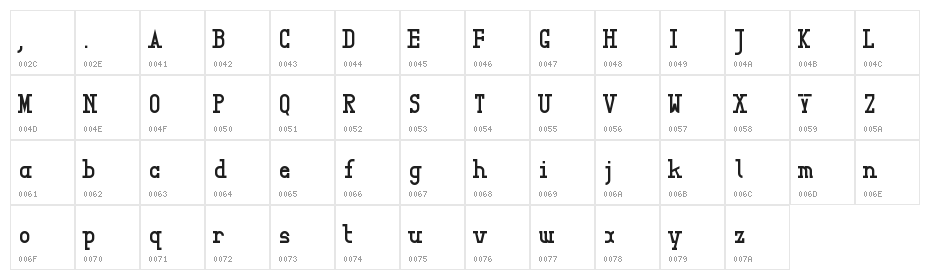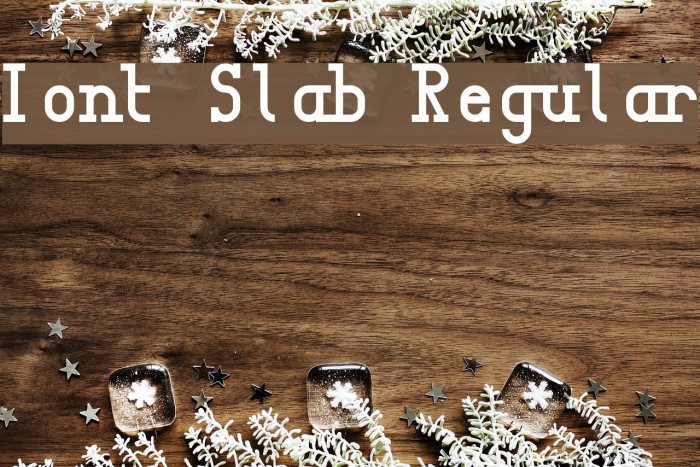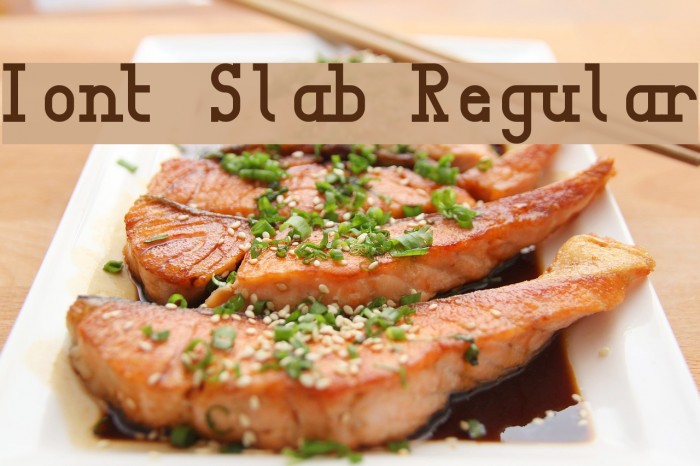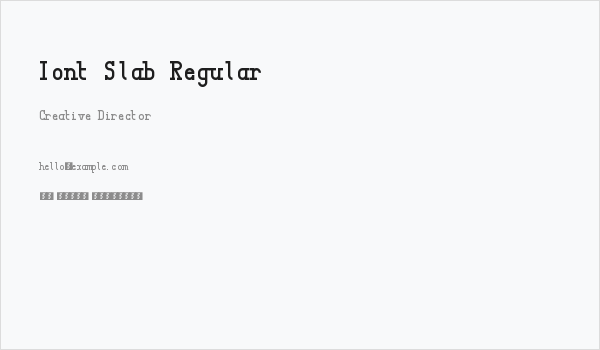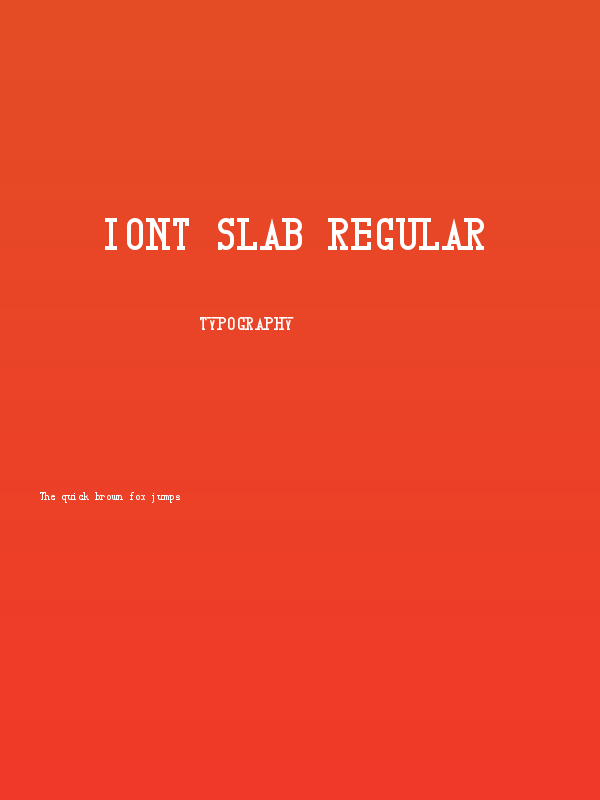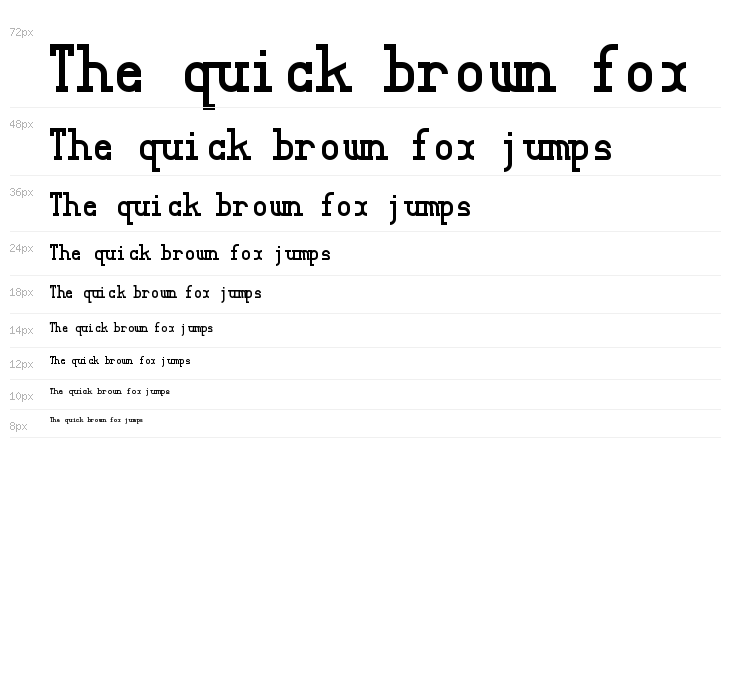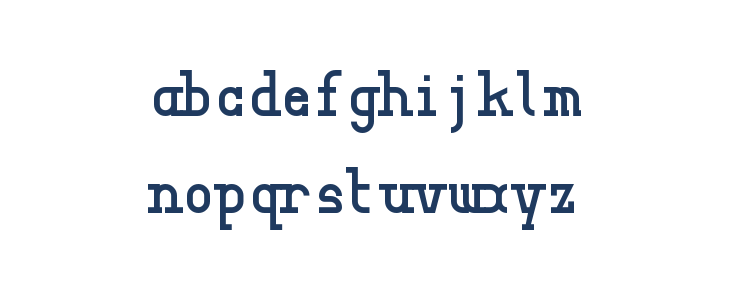
Iont Slab Regular Font
Iont Slab Regular Description
This font exhibits a robust and structured design with distinct slab serifs that provide a strong, authoritative presence. The uppercase letters are bold and commanding, while the lowercase letters maintain a consistent weight, offering a harmonious balance. The numerals are clear and legible, making them suitable for various applications. Special characters are designed with the same attention to detail, ensuring uniformity across all glyphs. The overall appearance is modern yet retains a classic touch, making it versatile for both traditional and contemporary projects.
| Proposed Projects | Ideal for headlines, posters, branding, and editorial design where a strong, impactful typeface is needed. |